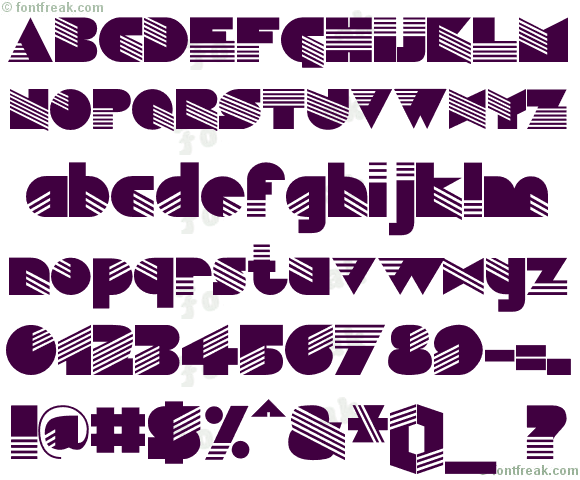
Simulata
The Simulata font, designed by Gary David Bouton in 2006, is a unique display typeface that combines modern aesthetics with a playful character. This font belongs to the decorative category, characterized by its striking visual elements that make it stand out in various design contexts. The Simulata font features a bold stroke weight and a distinctive contrast in its letterforms, which creates an eye-catching presence. The spacing is thoughtfully designed, allowing for clarity and readability while retaining a dynamic feel. Decorative elements, such as the playful lines that intersect and enhance the letters, add a layer of creativity and intrigue.
Ideal use cases for the Simulata font include wedding invitations, where its unique character can add a touch of elegance; movie posters, offering a modern flair that grabs attention; restaurant menus, providing an engaging visual experience for diners; branding for creative businesses, where originality is key; and event flyers, capturing the essence of excitement and fun. The font appeals to a diverse target audience, including graphic designers looking to elevate their projects, small business owners in need of a memorable logo, and content creators seeking to add personality to their work.
What sets the Simulata font apart is its captivating design that balances boldness and creativity, making it an excellent choice for projects that require a standout typeface. Whether you’re crafting a visual identity or designing promotional materials, the Simulata font free download offers a wealth of possibilities for those aiming to make a statement. Its versatility and charm ensure that it can adapt to various design needs, making it a valuable addition to any typographer's toolkit.